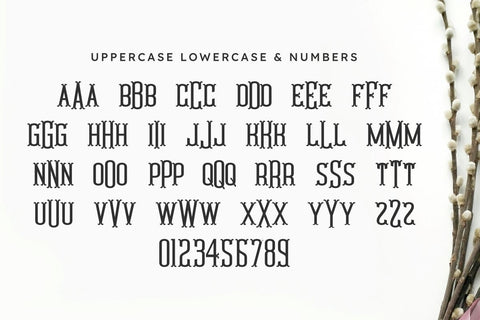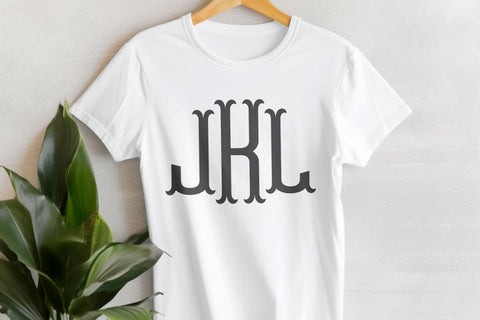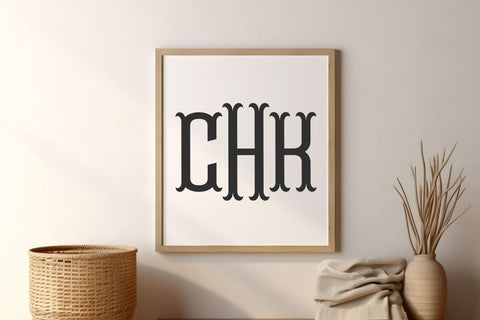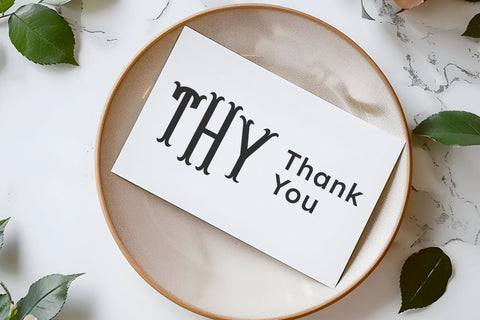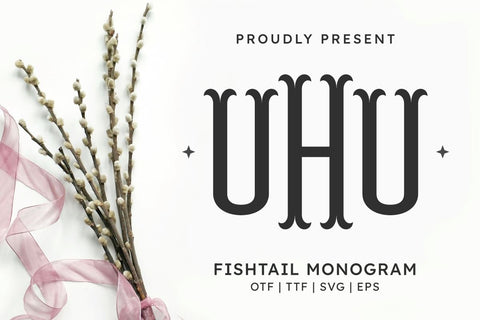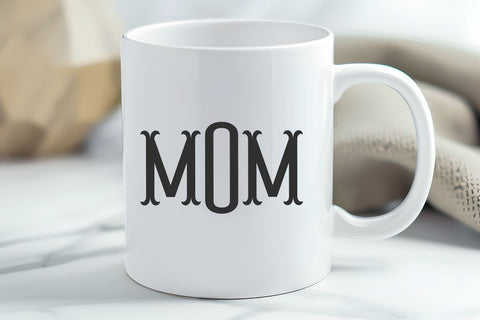
Fishtail Monogram - Monogram Font
Fishtail Monogram is a sneaky cool monogram font. a font whose decoration is inspired by fish tails in summer. This font is perfect for your creative projects such as t-shirts, print on demand, wall art, sweatshirts, baby sweats, mugs, tumblers, logos, cards, tote bags, keychains, pillows, stickers, quotes, Cricut projects, silhouette projects, cutting projects , and many other creative ideas.